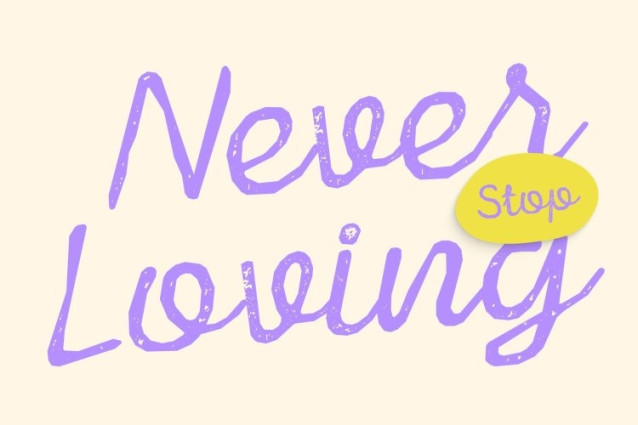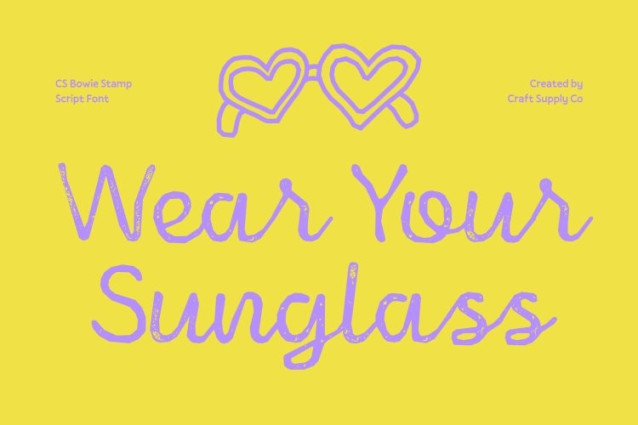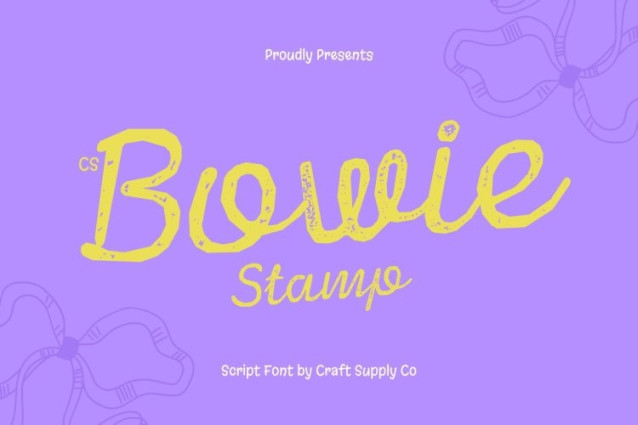
CS Bowie Stamp Font
CS Bowie Stamp Font – This transforms its clean, flowing handwritten strokes with a delicate stamped texture, adding subtle irregularities and ink-like impressions that evoke handcrafted authenticity. Each letter retains its graceful form while gaining a tactile, artistic feel reminiscent of hand-stamped or letterpress work.
Elegant Handwriting with Personality
The font preserves its refined, feminine appeal while embracing gentle imperfections that make each word feel alive. The combination of flowing curves and stamped detail creates warmth and intimacy, giving designs a sophisticated yet approachable character.
Ideal for Lifestyle, Fashion, and Event Design
Perfect for wedding invitations, editorial layouts, product packaging, or high-end branding, this font elevates text with personality and elegance. Its stamped effect adds visual interest without compromising clarity, making every headline or phrase feel curated and special.
Versatile for Digital and Print Applications
From print stationery to social media graphics, this font adapts beautifully across mediums. Its blend of fluid script and subtle texture ensures your designs convey sophistication, artistry, and a personal, handcrafted touch.